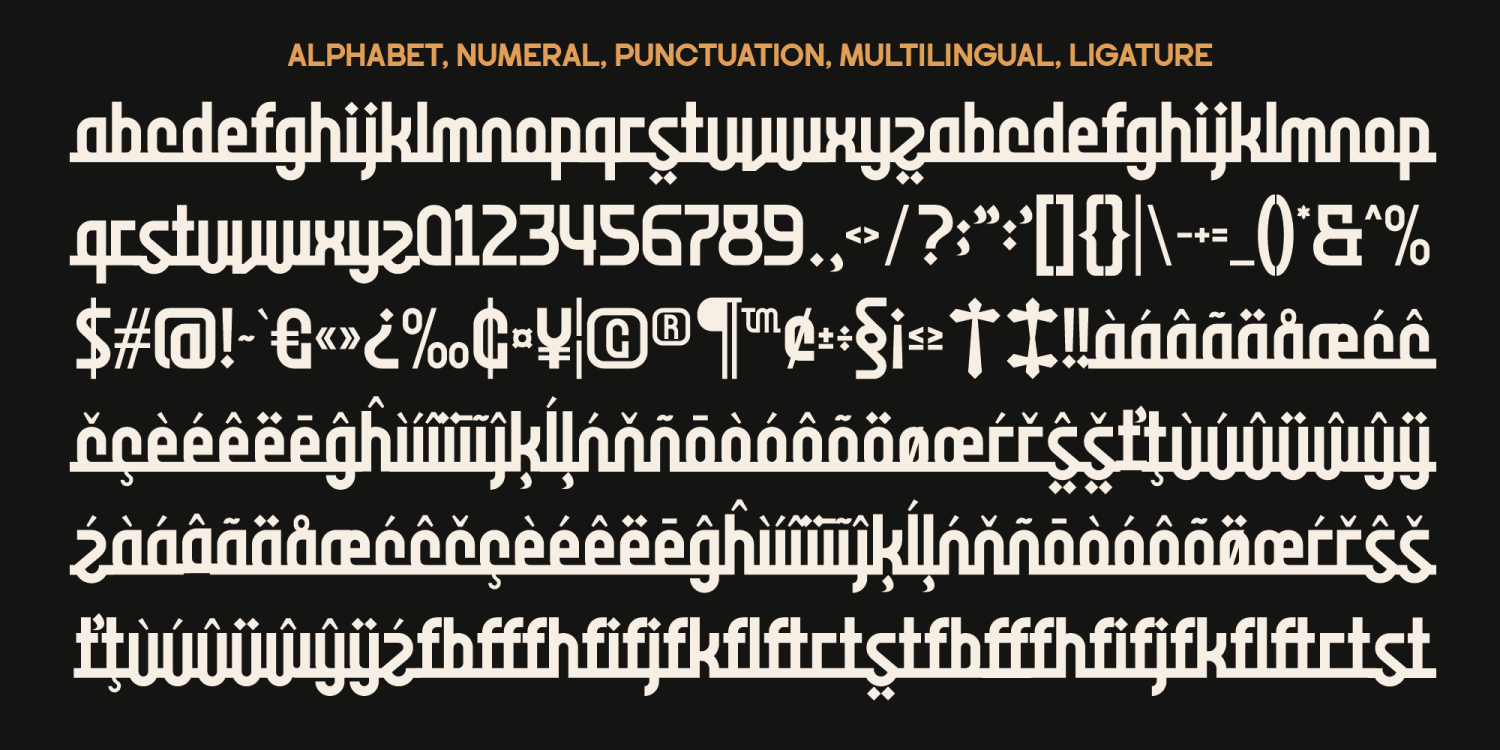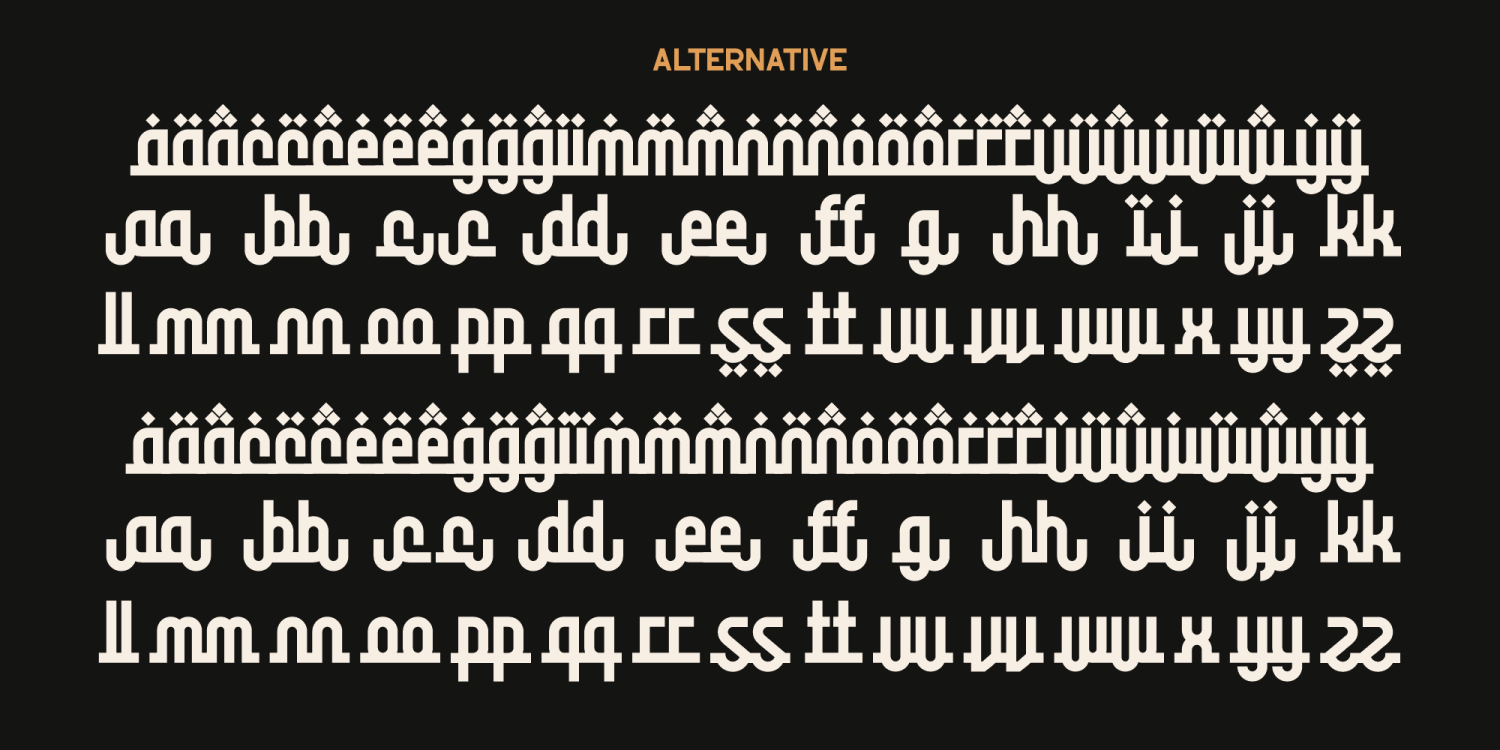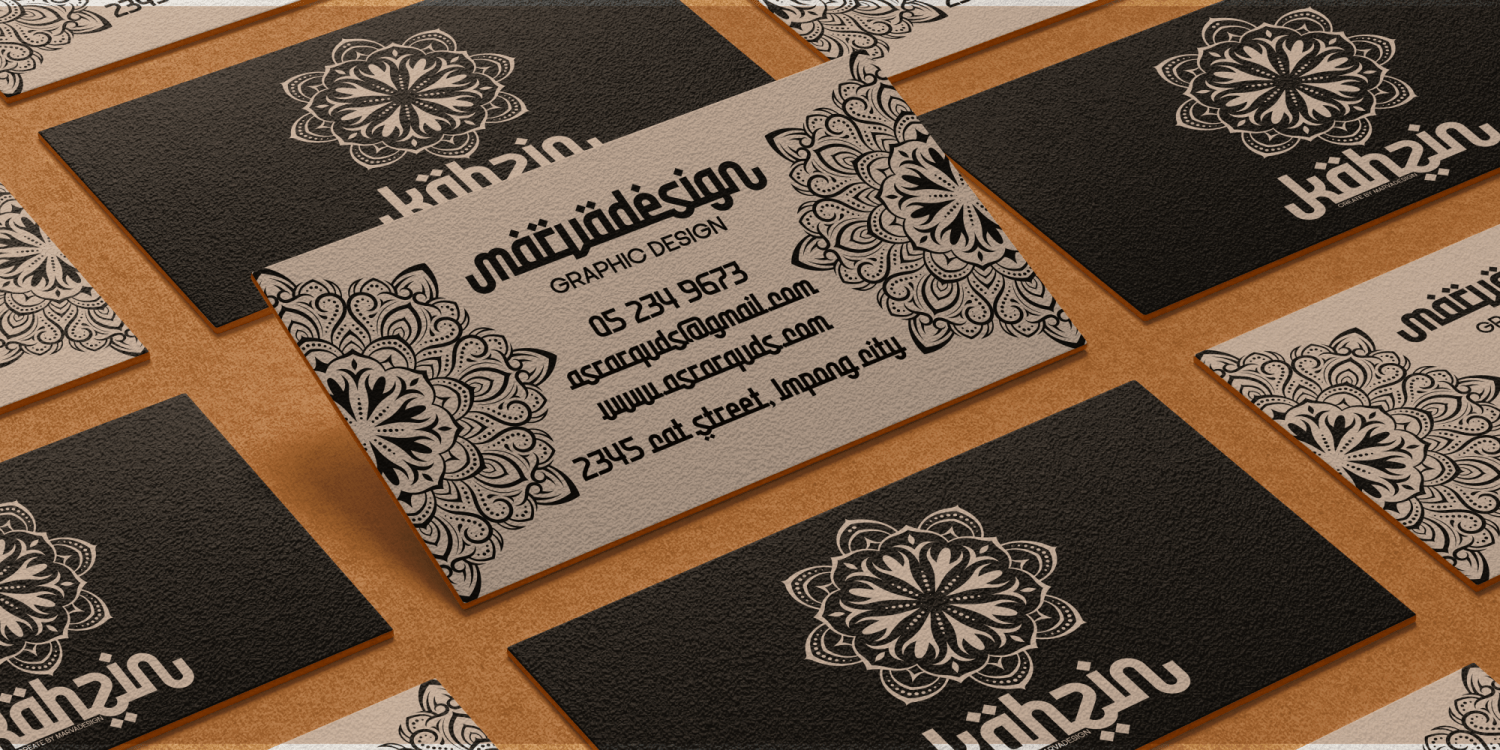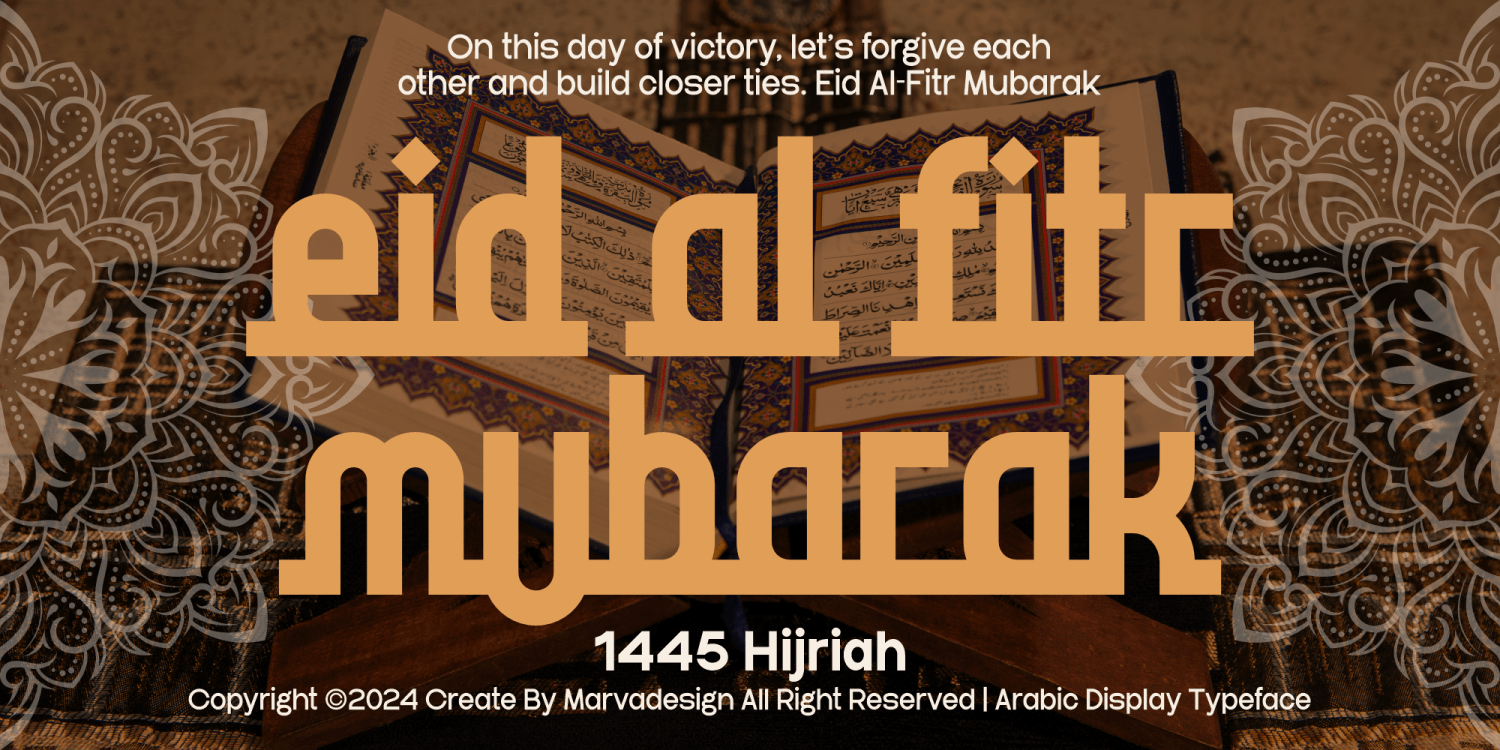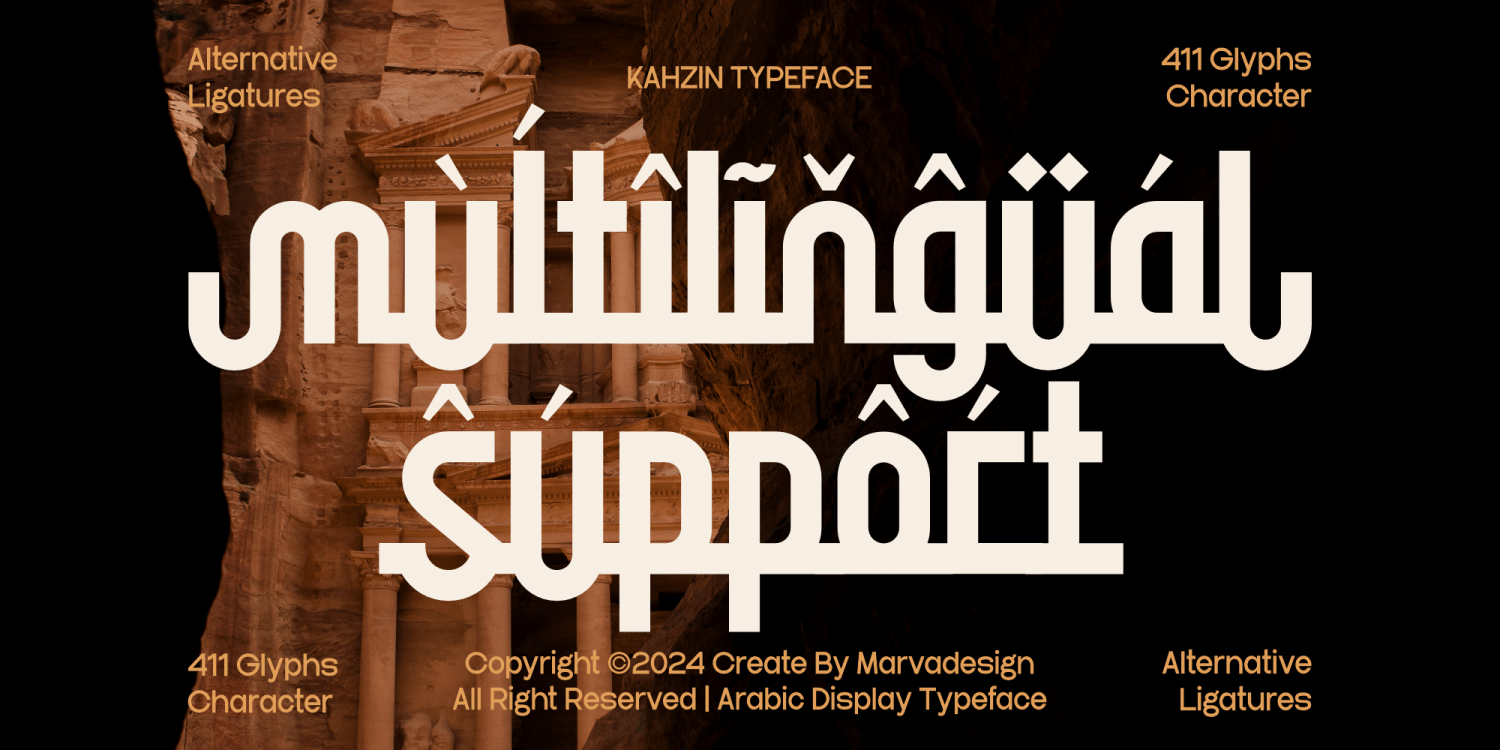
Kahzin
Font Family by Marvadesign
Introducing our new product Kahzin Font - A Modern Arabic-Style Font Kahzin Font - combines the beauty of traditional Arabic letters with modern design elements. Clean, well-proportioned lines provide an elegant and easy-to-read impression. The strength and flexibility of the letterform makes it ideal for use in large headlines and stand-out posters. The font is suitable for any branding project like logo, Template Design, Product, tshirt and many more. outstanding in a wide range of contexts.